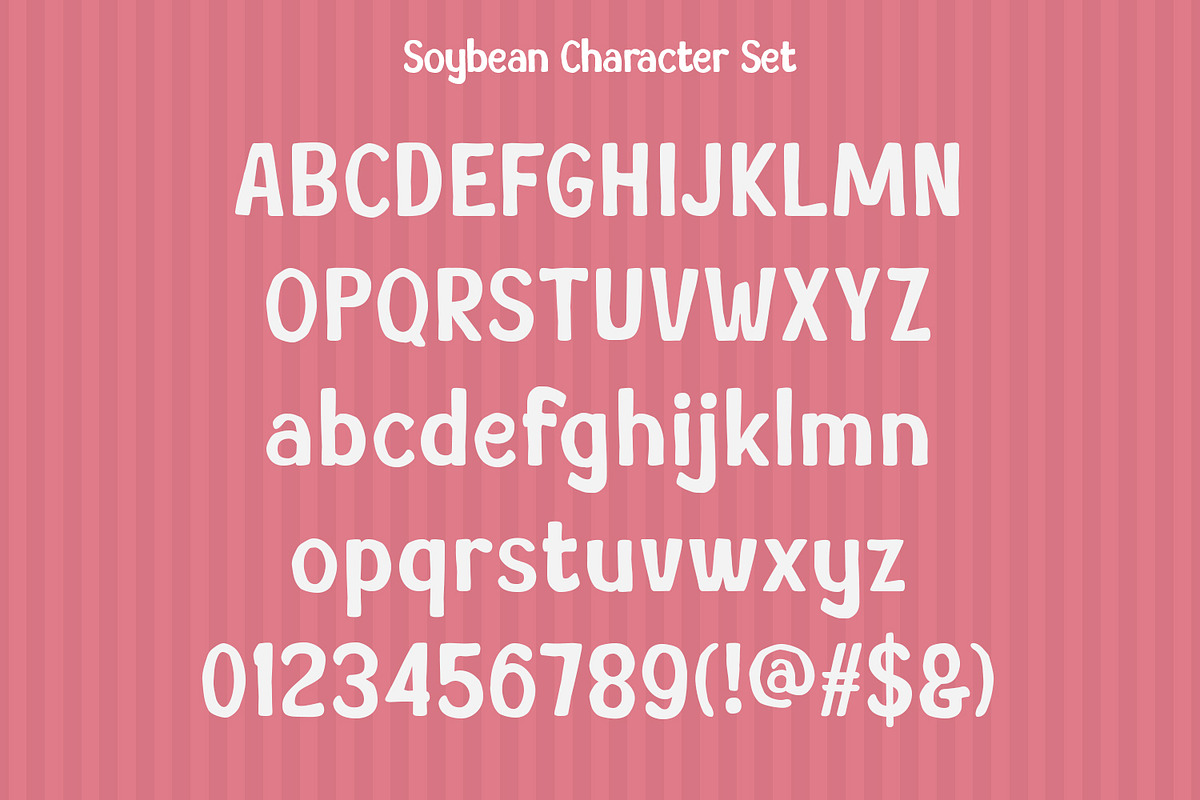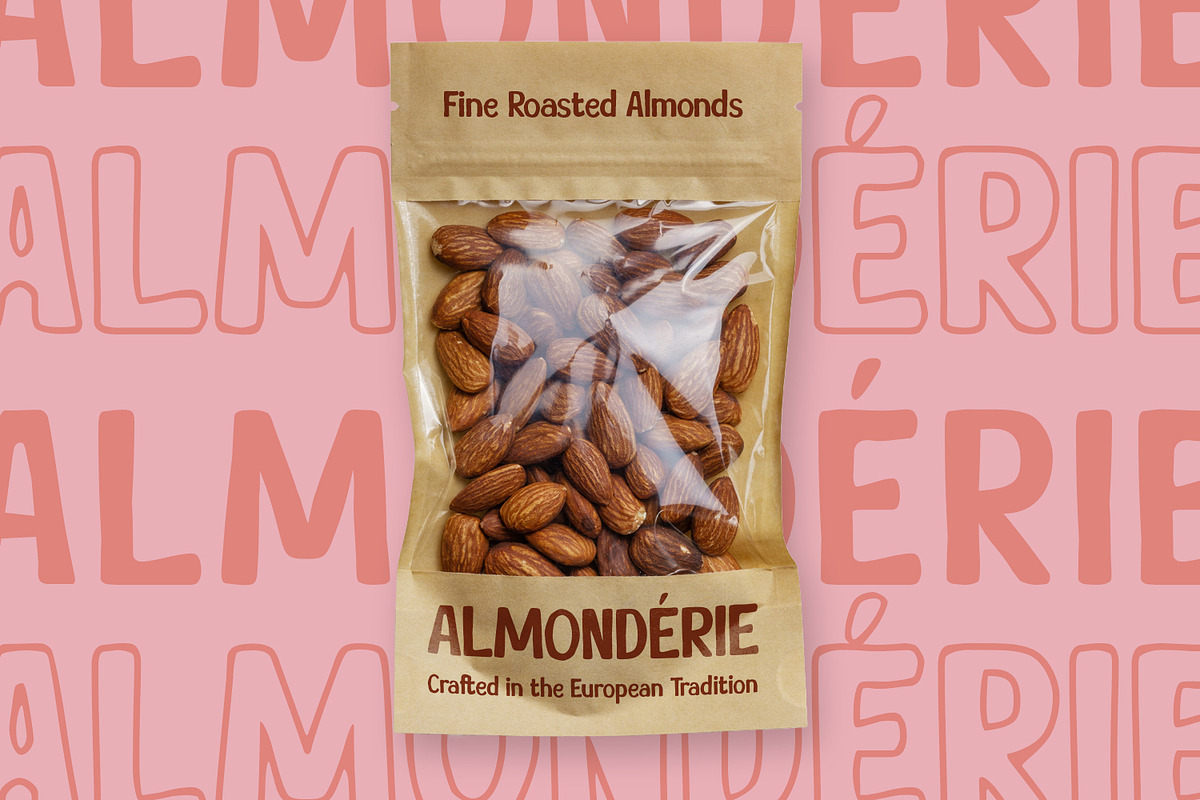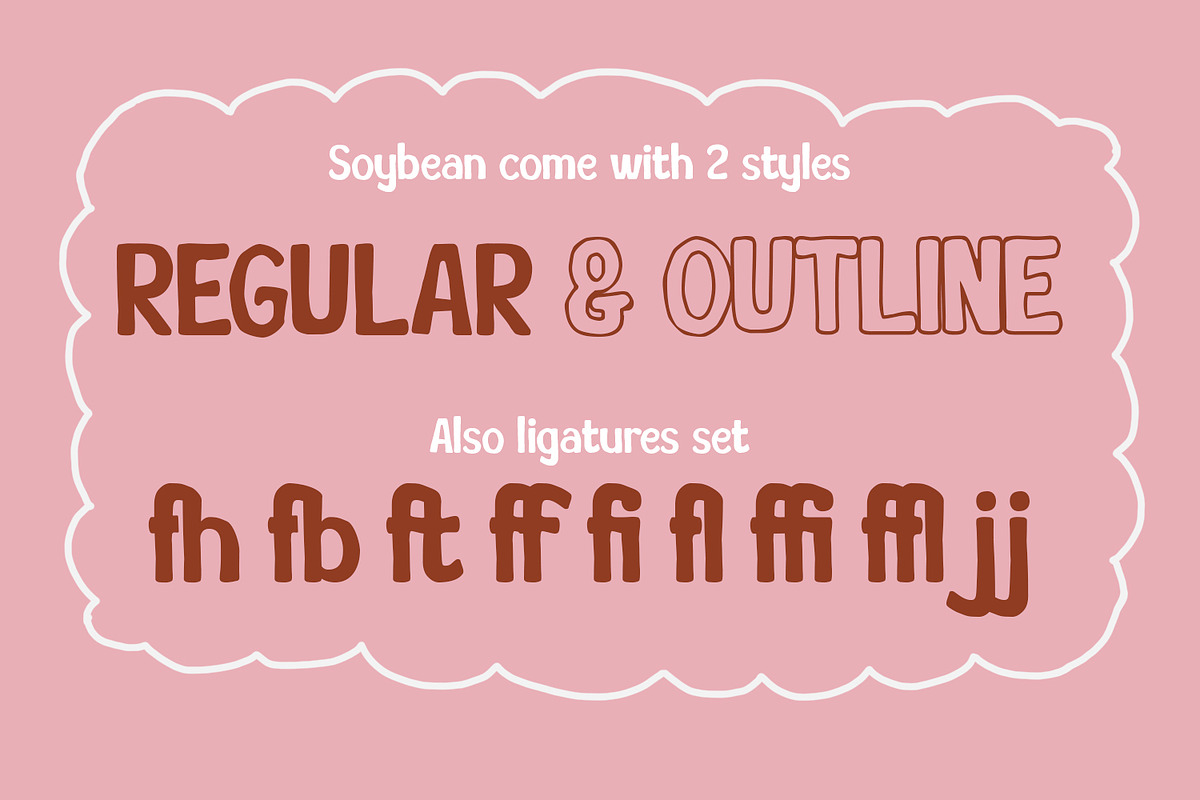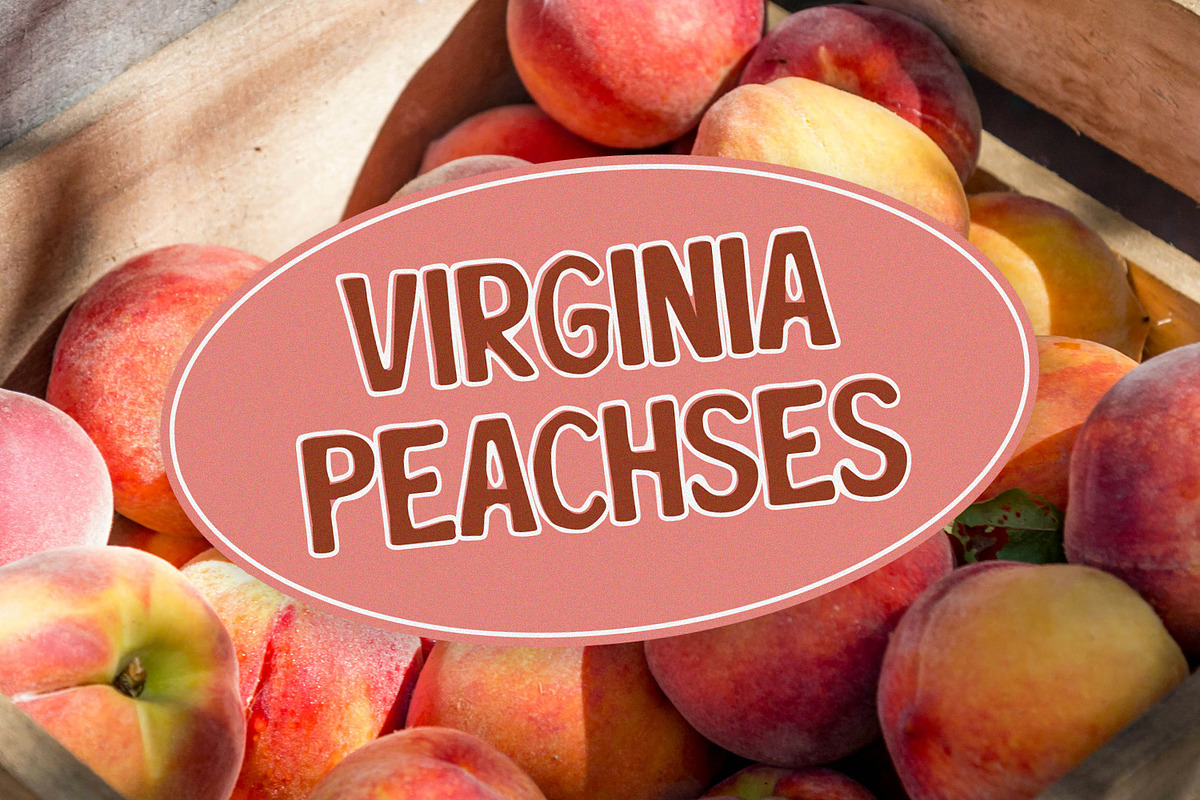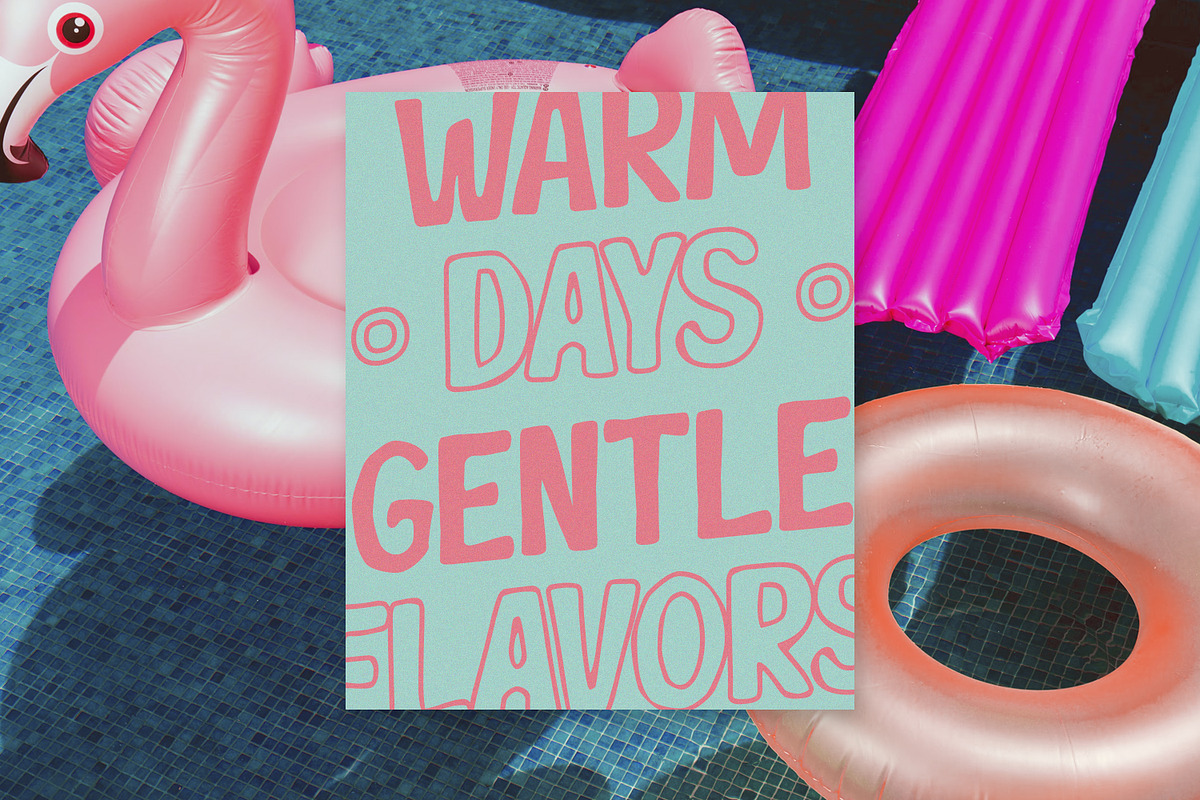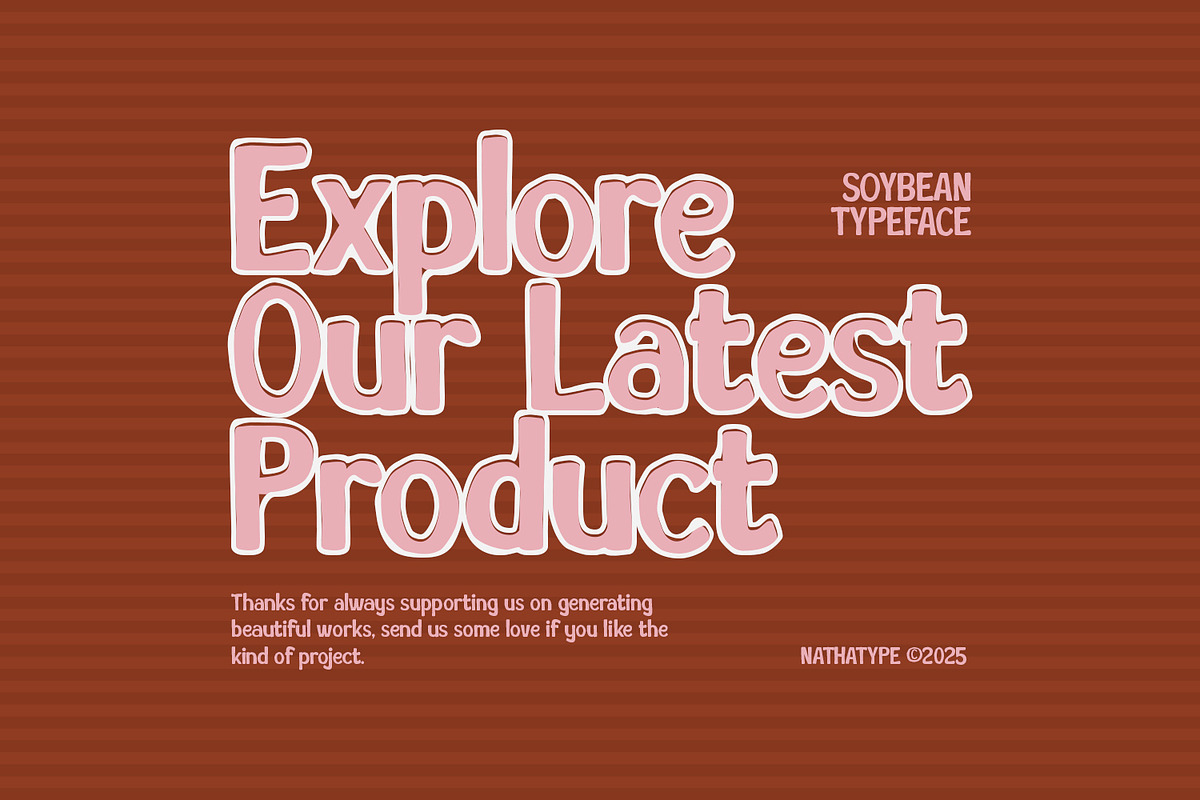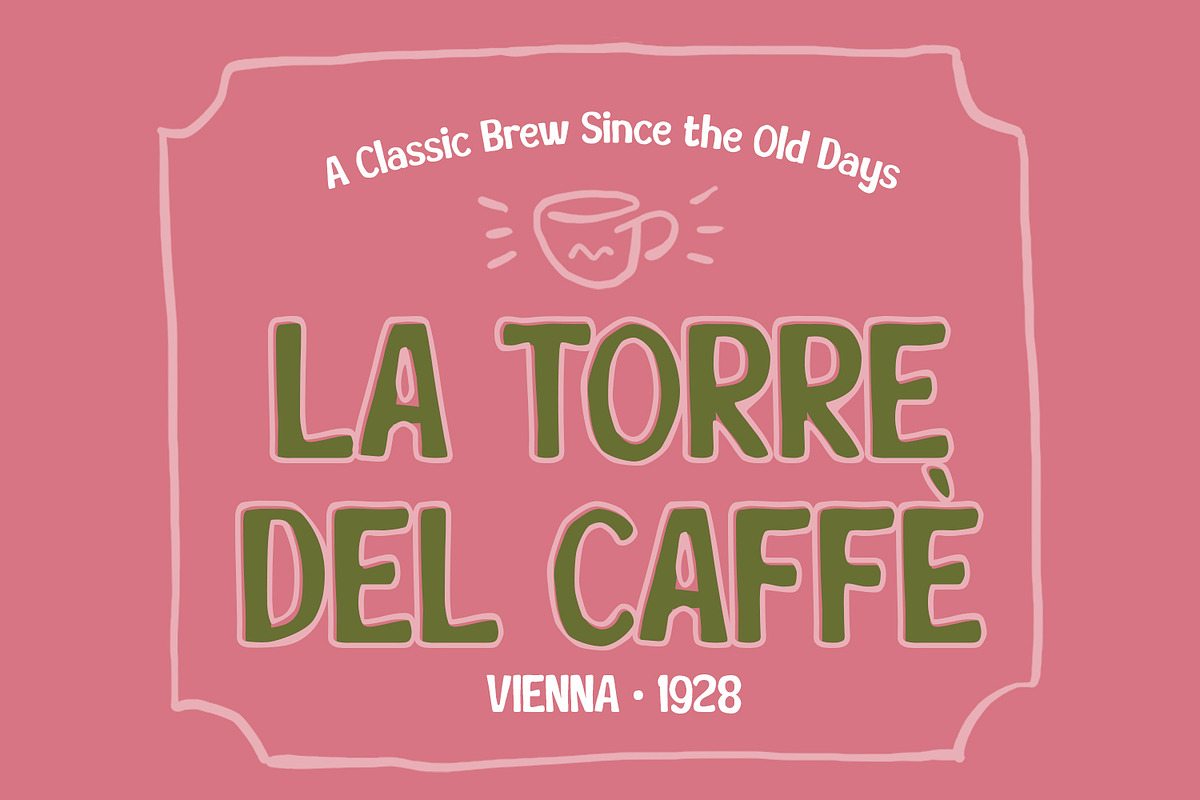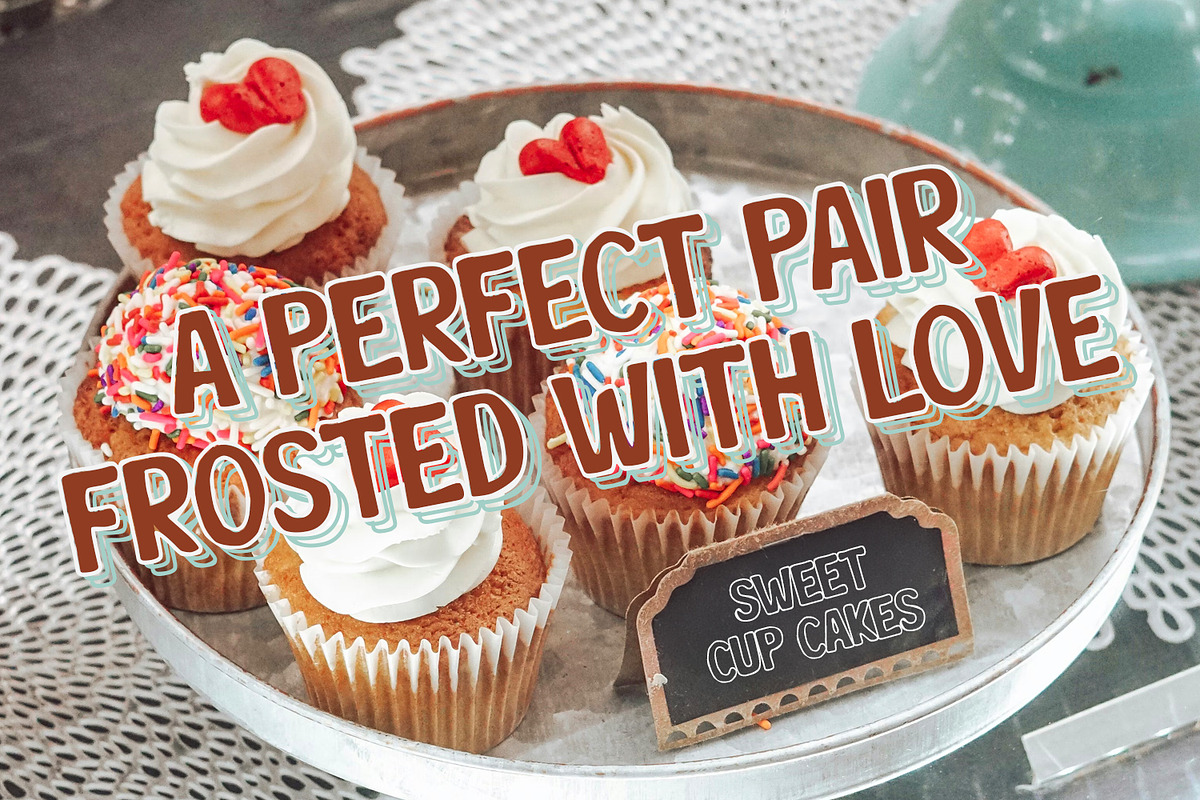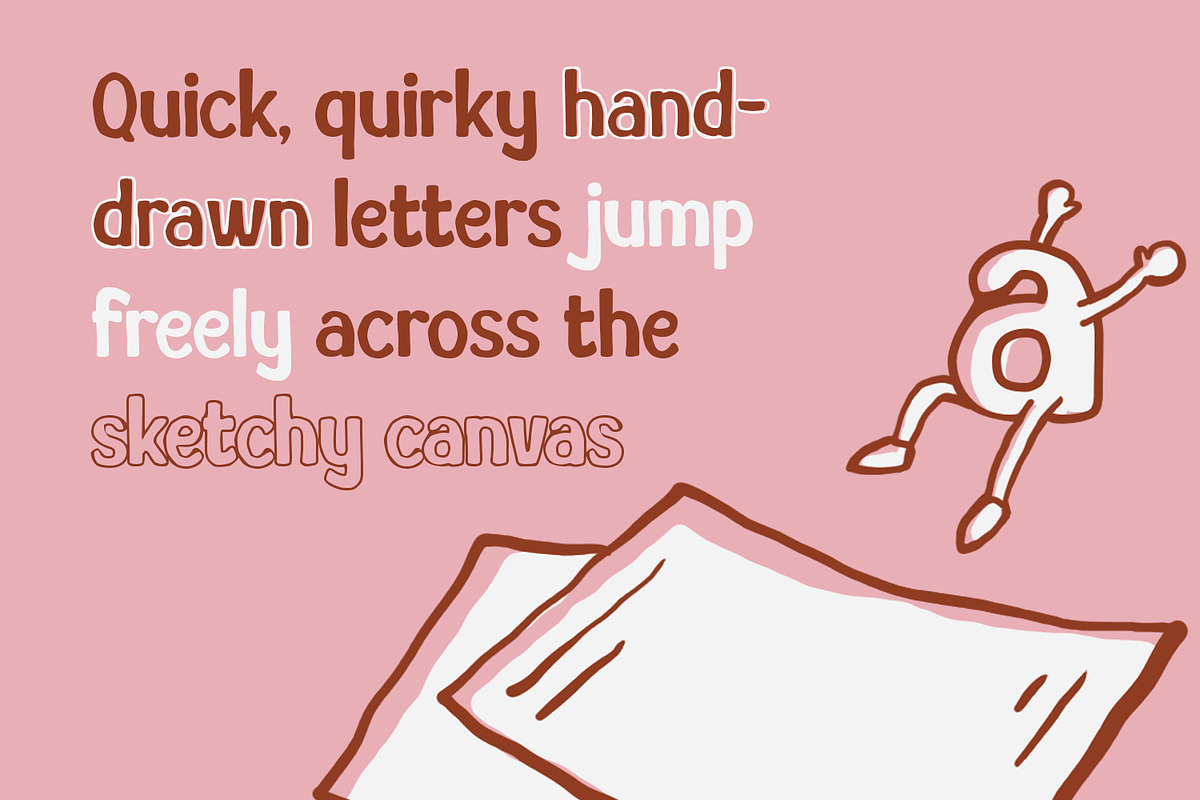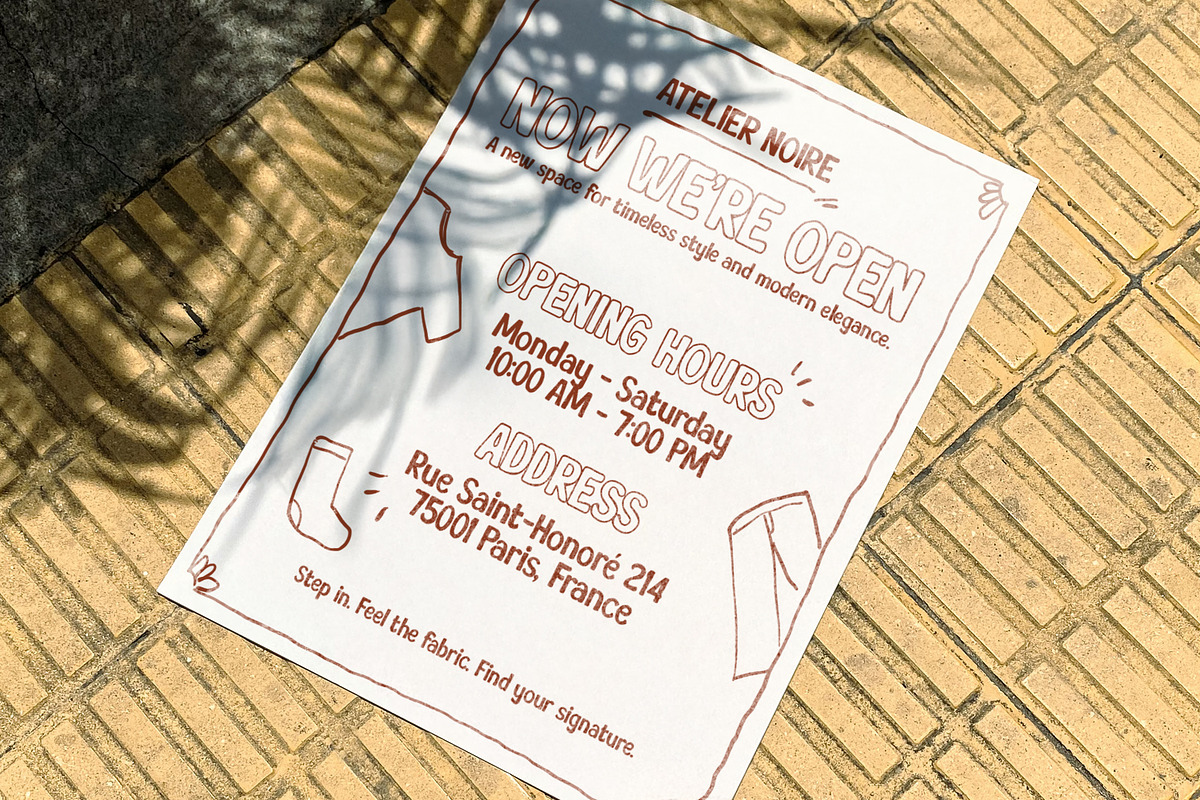
Soybean
Soybean is a charming hand-drawn font duo designed to bring warmth, friendliness, and playful character to your creative projects. Inspired by organic lettering and casual sketch styles, Soybean features smooth curves and balanced proportions that create a welcoming and expressive look. Its moderate weight ensures excellent readability while maintaining enough visual impact to stand out in headlines and logos. Soybean comes in two flexible styles: Solid and Outline. In addition, enjoy the features here.
- Stylistic Sets
Soybean fits in logos, quotes, branding, posters, and many more designs. Find out more ways to use this font by taking a look at the font preview.